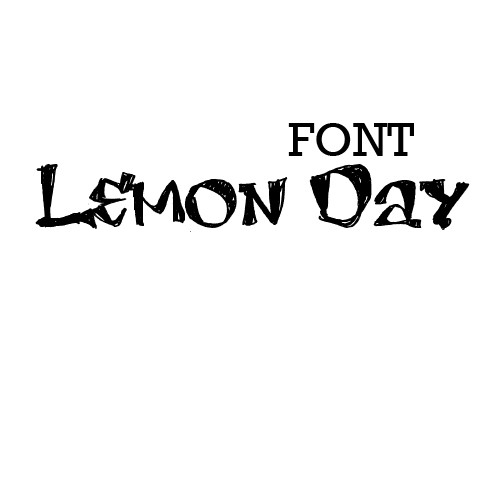
my latest font work.it use a slightly different (
not so suitable for a word processors, best performance at graphic enhancers softwares.
Your hand drawn fonts are fab. Using this one for a major project right now. Will send you links when ready!
I don't know why but looking at this genuinely makes me thirsty for freshly squeezed orange juice, ahaha. Must mean you did a good job on the "citrus" theme, I guess.
Anyway, this font is perfect for what I need. I am writing an Art dissertation for school, and part of the requirement is that it be illustrated and just... generally more interesting than a plain wall of text. Part of my project is based around citrus fruits and other similar things so I think this font would be perfect!